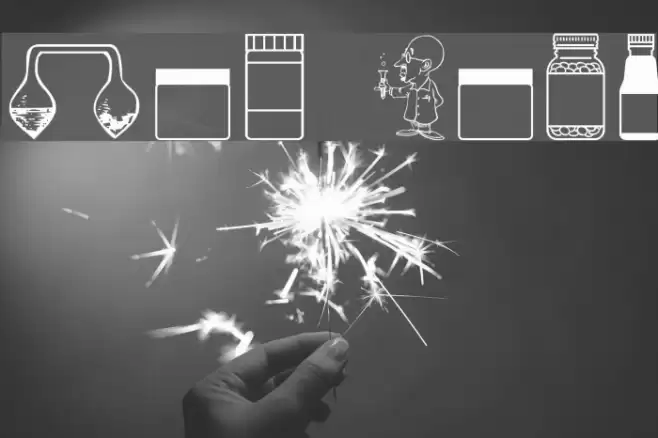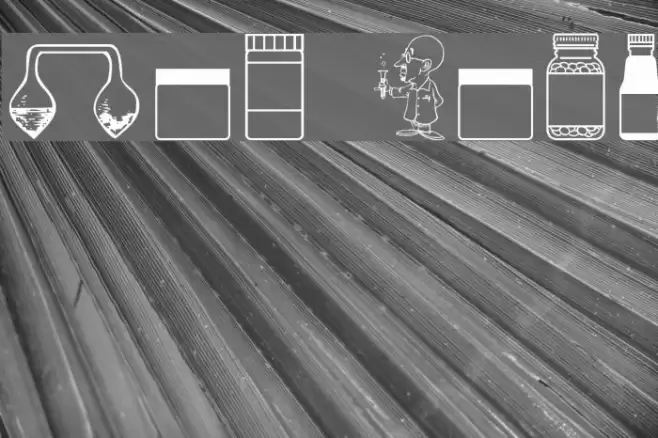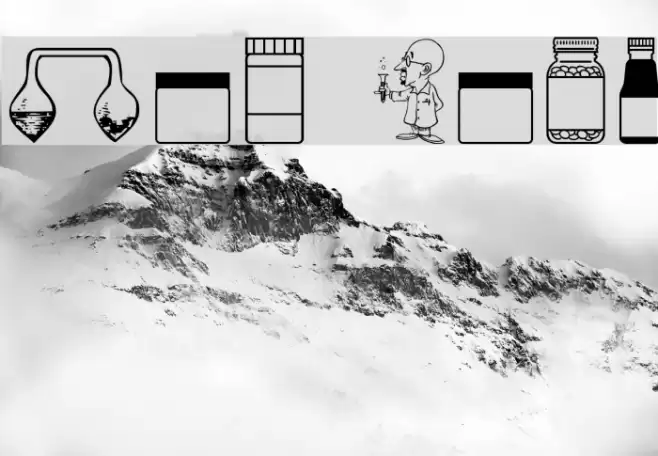
Lab Bats Font
Lab Bats Description
A decorative dingbat font featuring a variety of laboratory-themed illustrations, including scientists, lab equipment, bottles, beakers, flasks, and chemical containers. Each character is represented by a unique, detailed black-and-white icon or cartoon, rather than traditional alphanumeric glyphs.
A laboratory-themed dingbat font with science icons and cartoon scientists from Uncategorized fonts.
- Proposed Projects: Science posters, educational materials, children's books, STEM event flyers, themed party invitations, infographics.
- Overall Style: Decorative, Playful, Thematic
- Use Case: Icons, Illustrations, Decorative elements